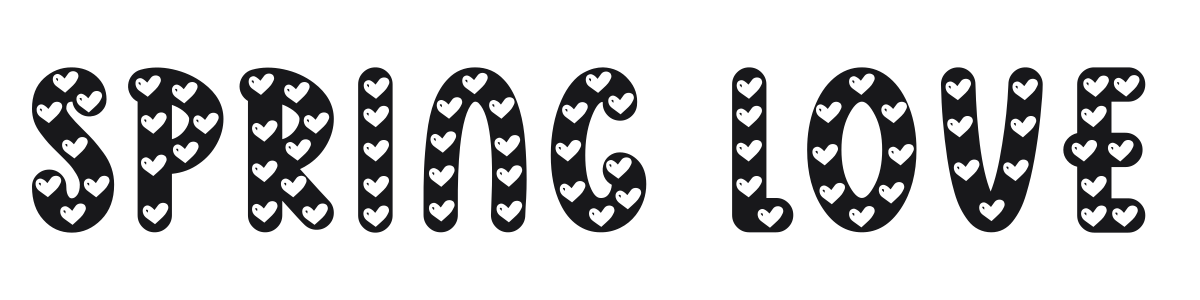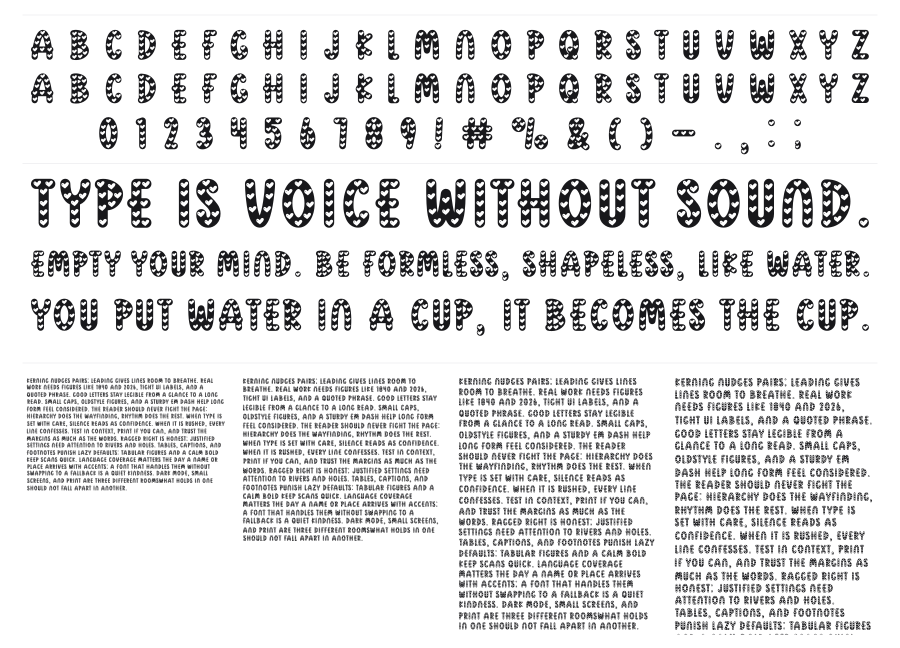
Spring Love
Spring Love is a bold rounded display font where every letter is filled with a repeating pattern of small hearts. The thick, friendly strokes carry the motif cleanly, making the romance theme impossible to miss. Best used large, where the heart texture reads clearly.